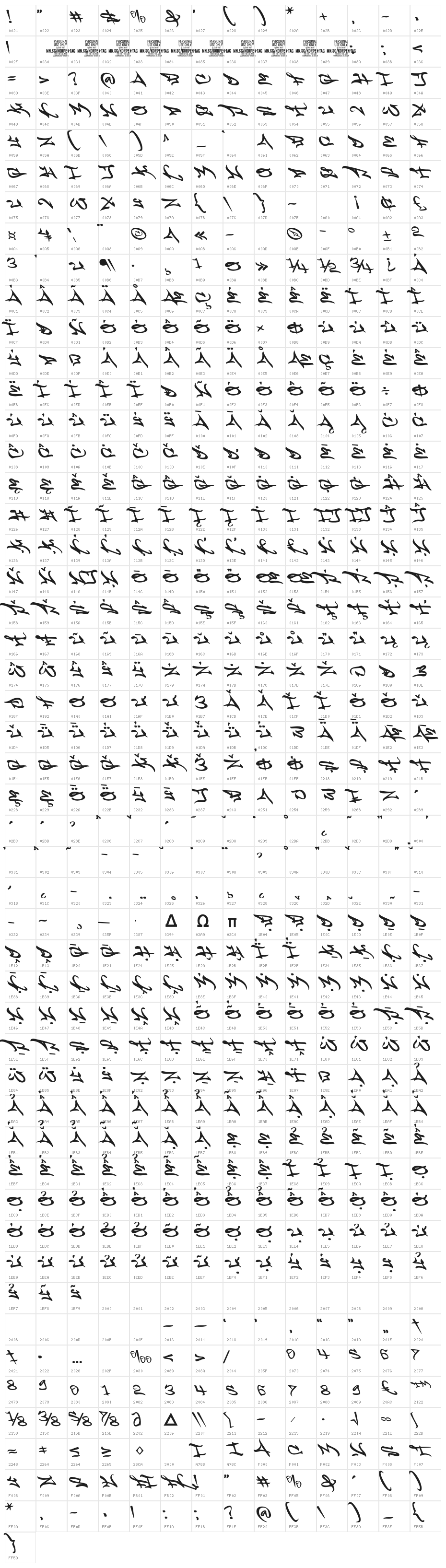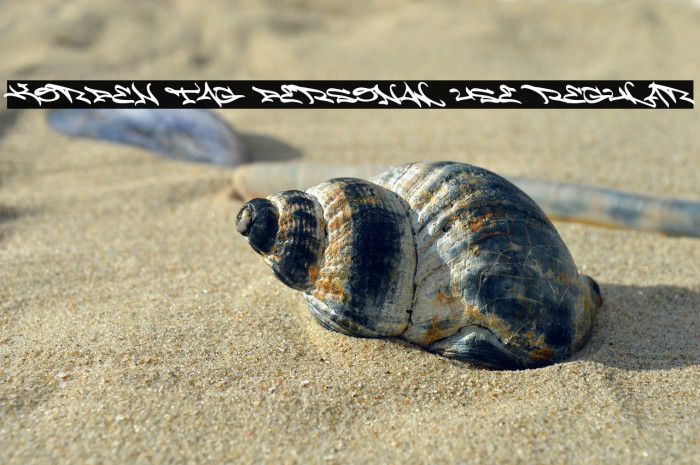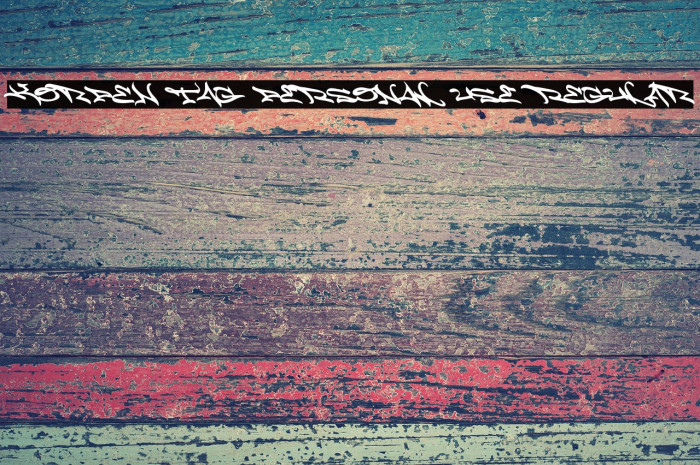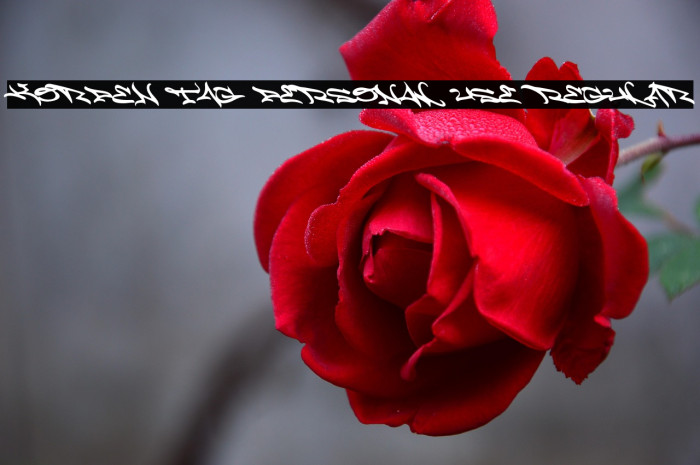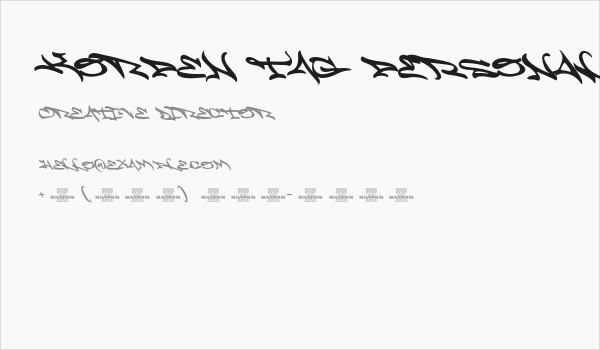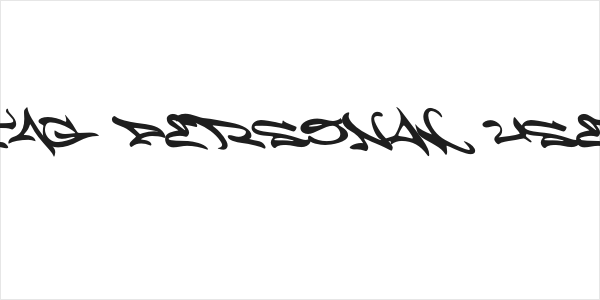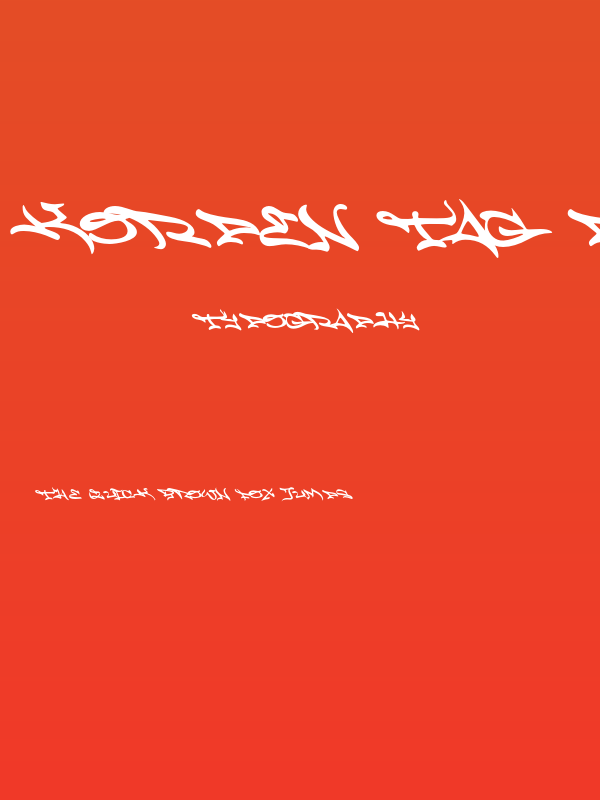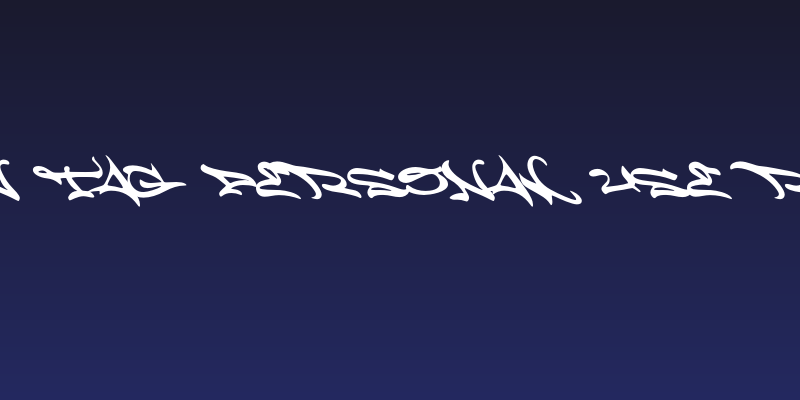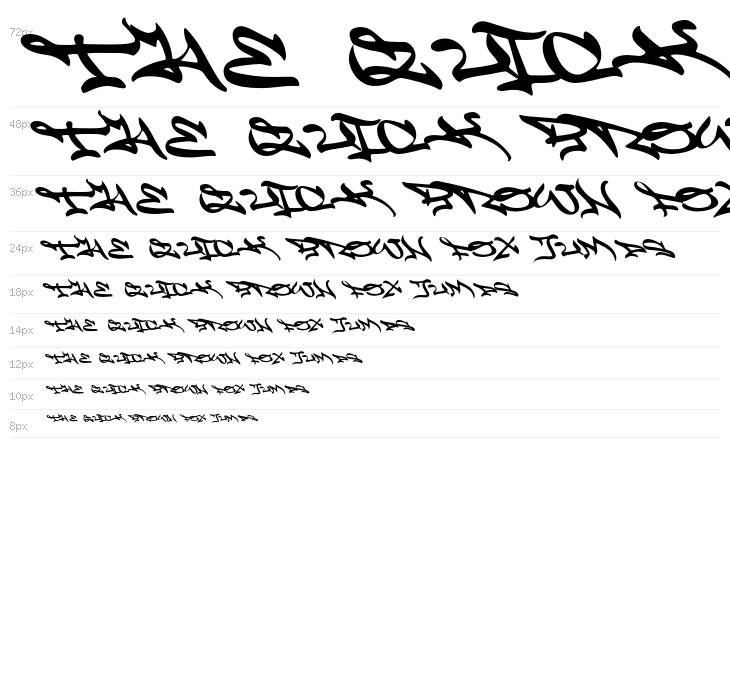
Korpen Tag PERSONAL USE Regular Font
Korpen Tag PERSONAL USE Regular Description
This font features a bold, graffiti-inspired style with sharp, angular lines and dynamic curves. The characters are highly stylized, giving off an urban, edgy vibe. The uppercase and lowercase letters maintain a consistent theme, with exaggerated serifs and unique flourishes that suggest motion and energy. The numbers and special characters follow the same aesthetic, making the font cohesive and visually striking. It's designed to stand out, making it ideal for projects that require a strong visual impact.
| Overall Style | Urban, Edgy, Graffiti |
| Use Case | Logos, Posters, Album Covers |
| Proposed Projects | Ideal for street art designs, urban-themed posters, music album covers, and edgy branding projects. |